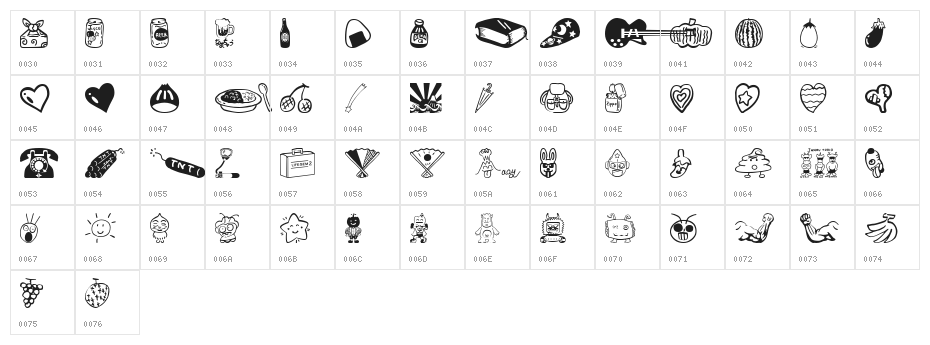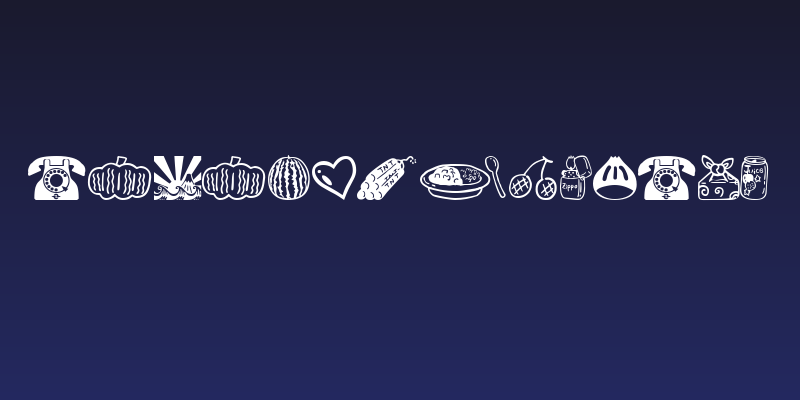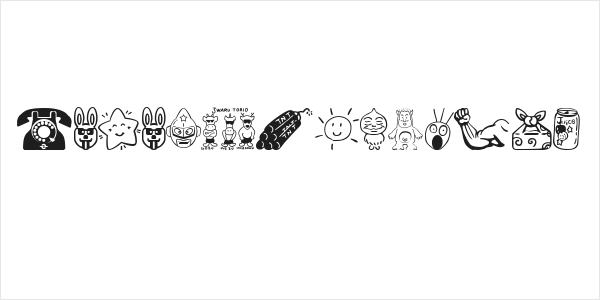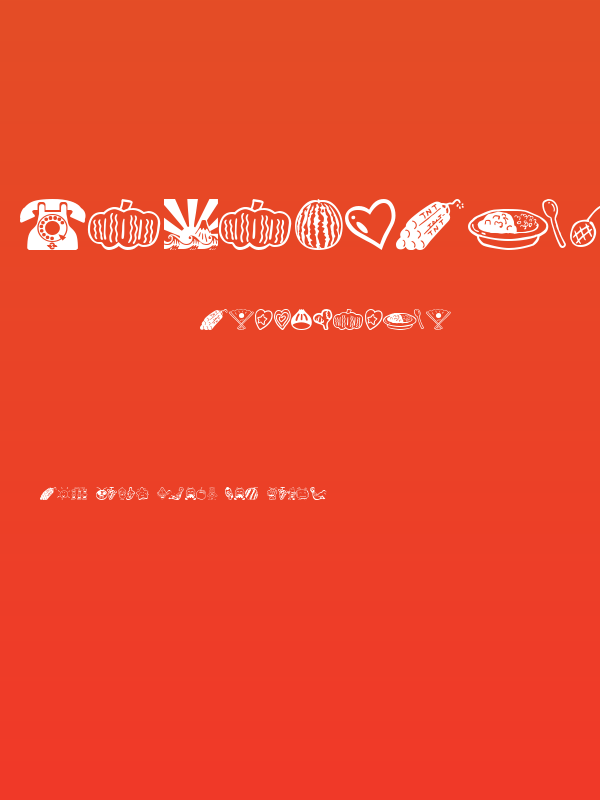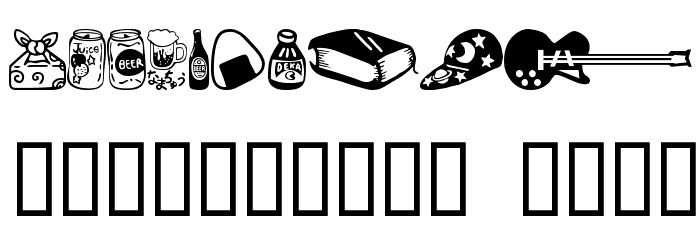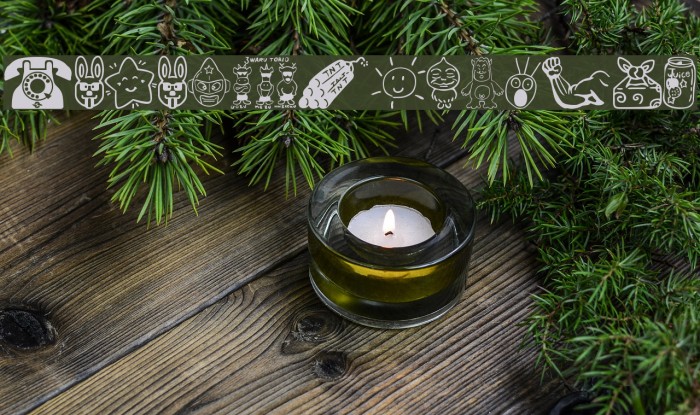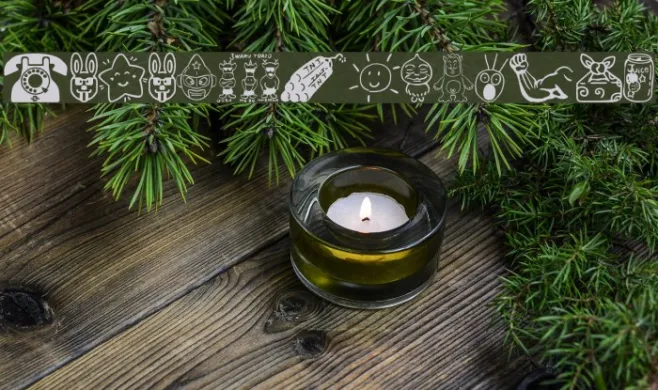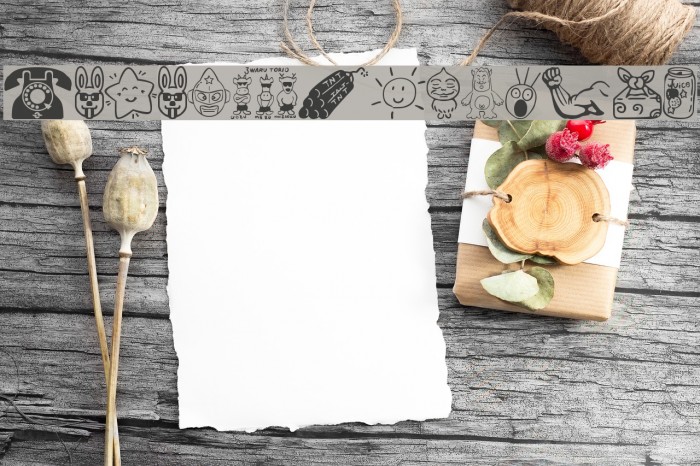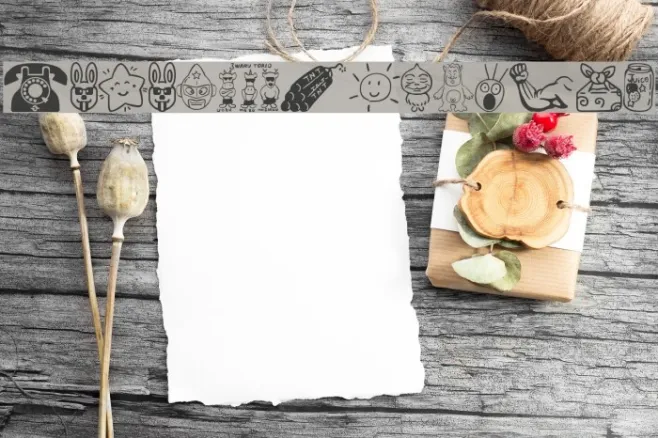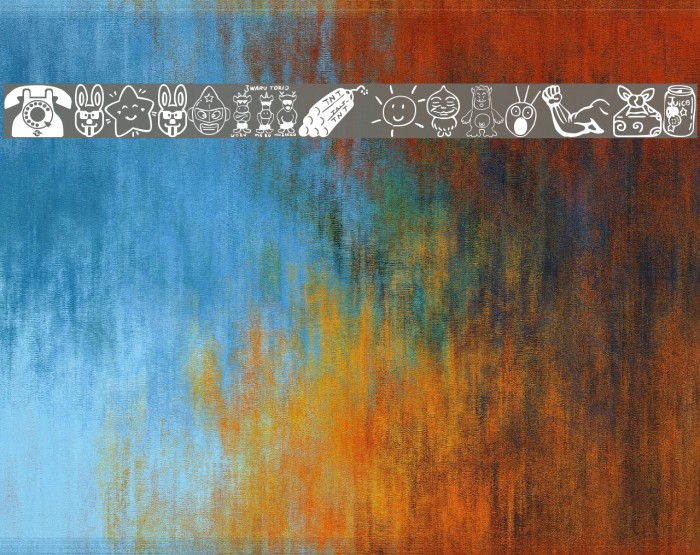
SakabeThings01 Font
| Overall Style | Whimsical, Playful, Cartoonish, Decorative |
| Use Case | Icons, Decorative elements, Themed graphics, Visual storytelling |
| Proposed Projects | Children’s books, party invitations, educational materials, playful branding, stickers, scrapbooking, and decorative projects. |